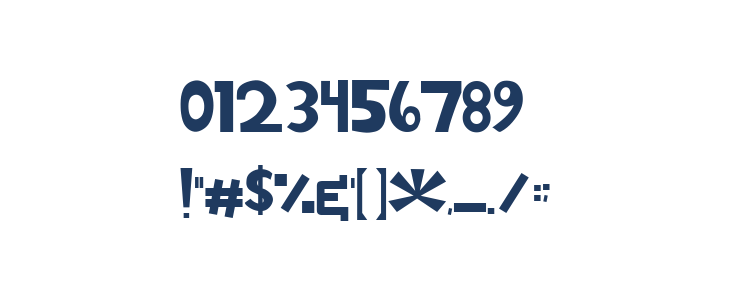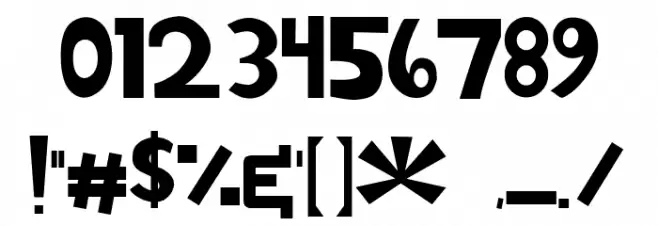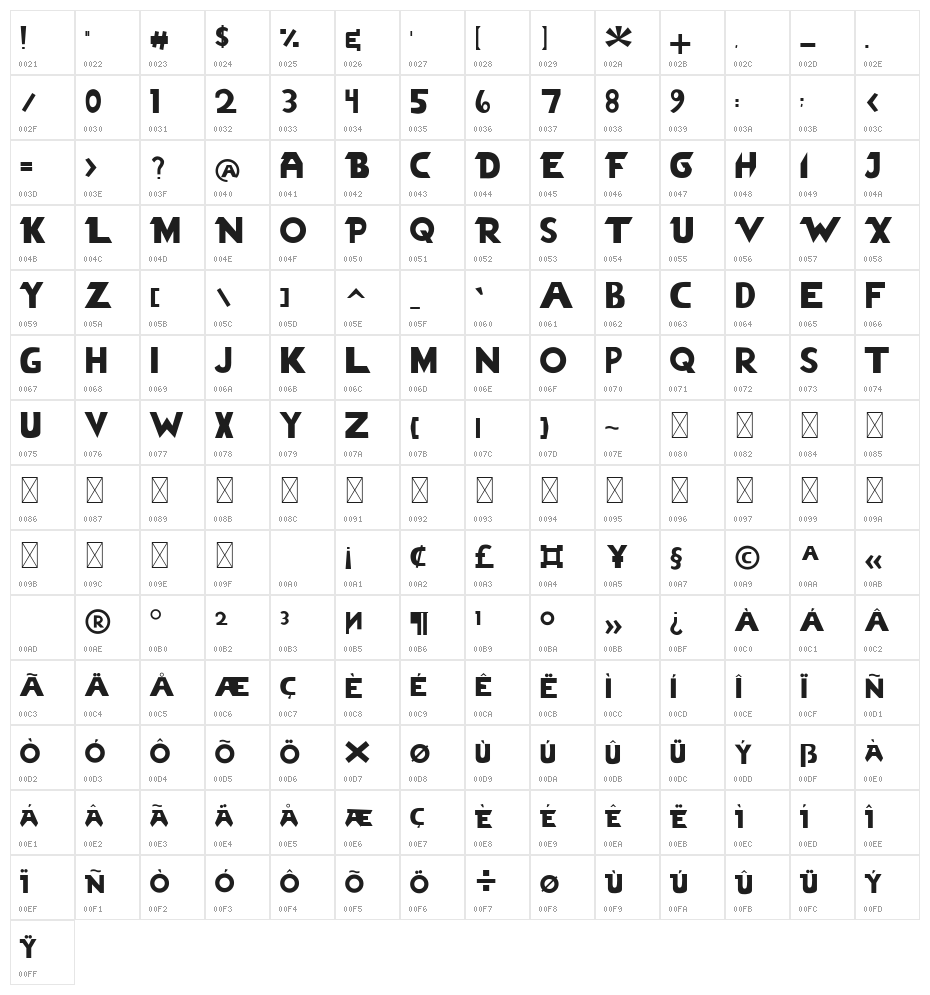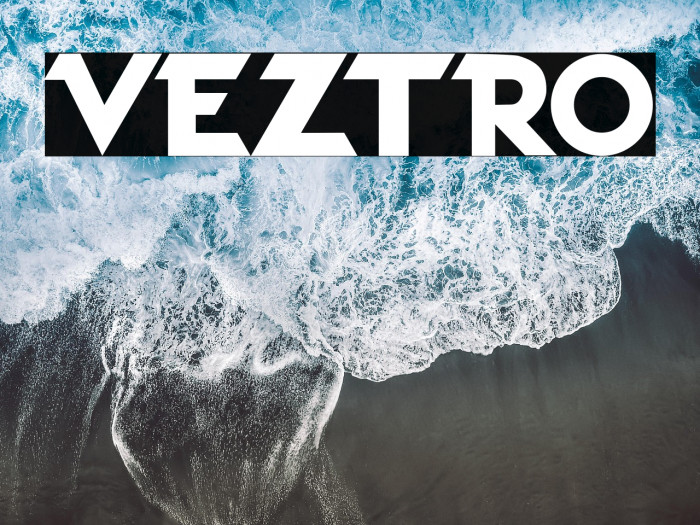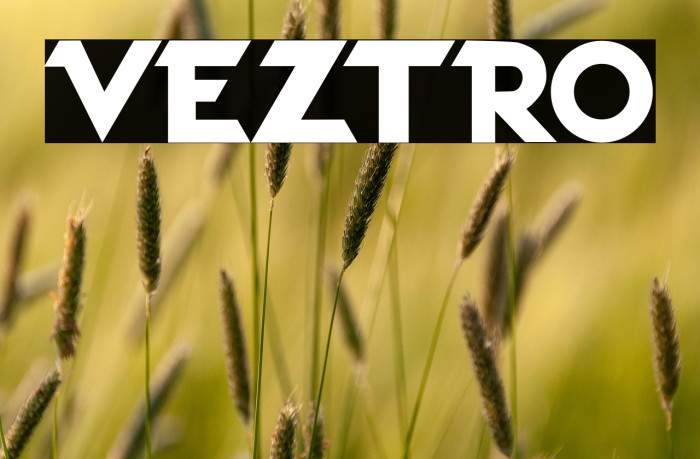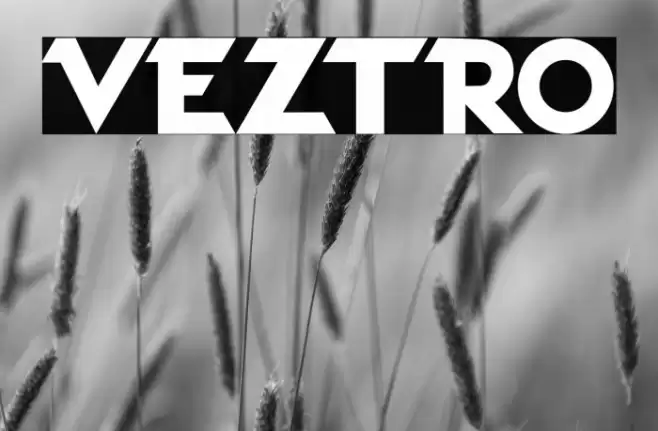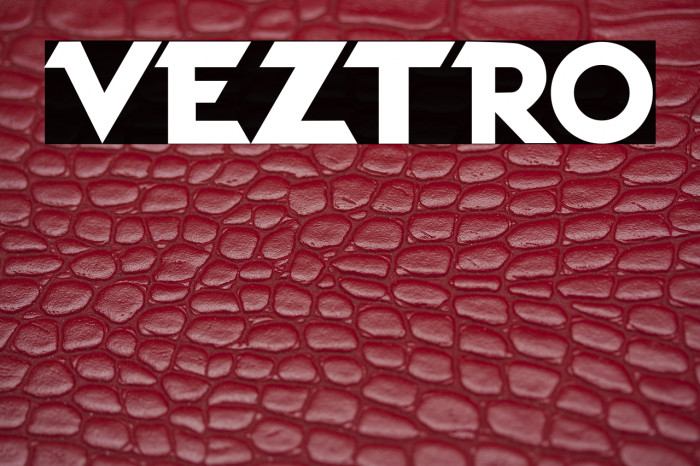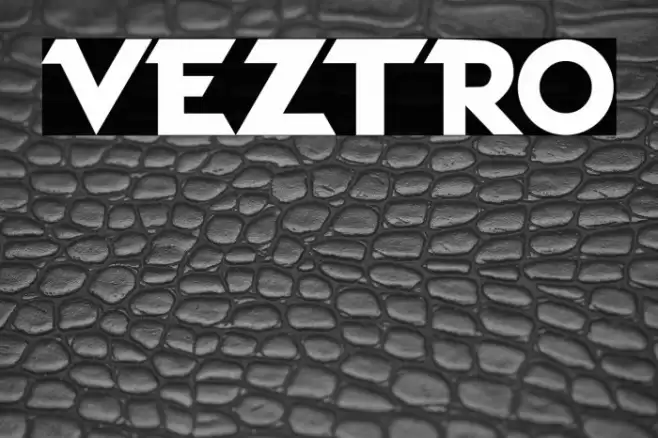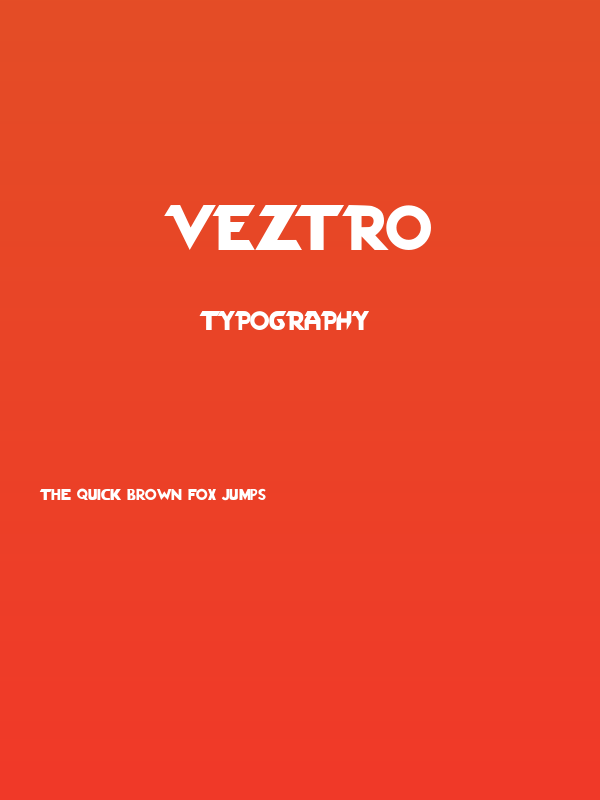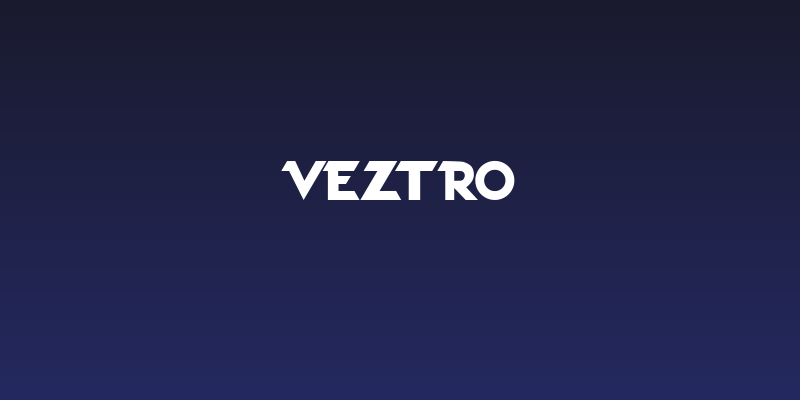
VEZTRO Font
VEZTRO Description
This font features a bold and dynamic design with sharp, angular edges and a futuristic aesthetic. The uppercase letters are striking, with a geometric style that emphasizes strong diagonals and clean lines. The lowercase letters maintain the same boldness, creating a cohesive look across the alphabet. Numbers are equally bold, ensuring visibility and impact. Special characters are designed to match the overall style, making this font ideal for attention-grabbing designs. The font's unique style is perfect for modern and edgy projects, offering a distinctive look that stands out.